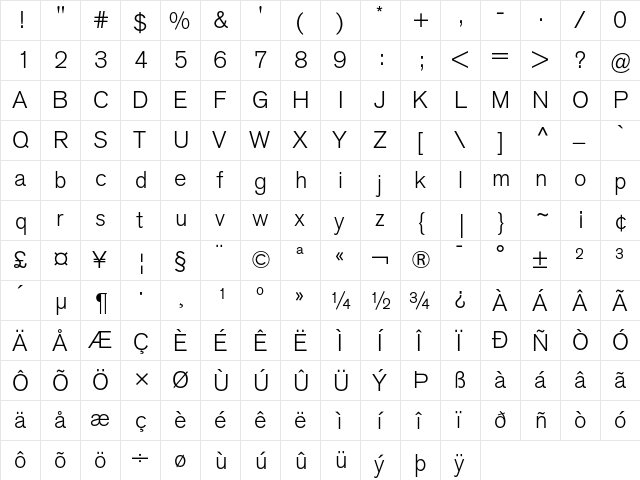
Berthold Akzidenz Grotesk BE Light
Design Context for Berthold Akzidenz Grotesk BE Typeface
Berthold Akzidenz Grotesk BE takes a clean, functional approach — its unadorned letterforms prioritise legibility and work reliably across screen and print environments. The delicate stroke weight brings airiness and refinement to layouts.
Ideal for fashion and beauty branding, minimal editorial layouts, and premium digital experiences.
Font Pairing: Pair Berthold Akzidenz Grotesk BE with a medium or bold serif for headlines — the weight contrast creates an elegant, high-end feel.
Pro Tip: Avoid using Berthold Akzidenz Grotesk BE at very small sizes where its slender strokes can disappear. It performs best at medium to large sizes.